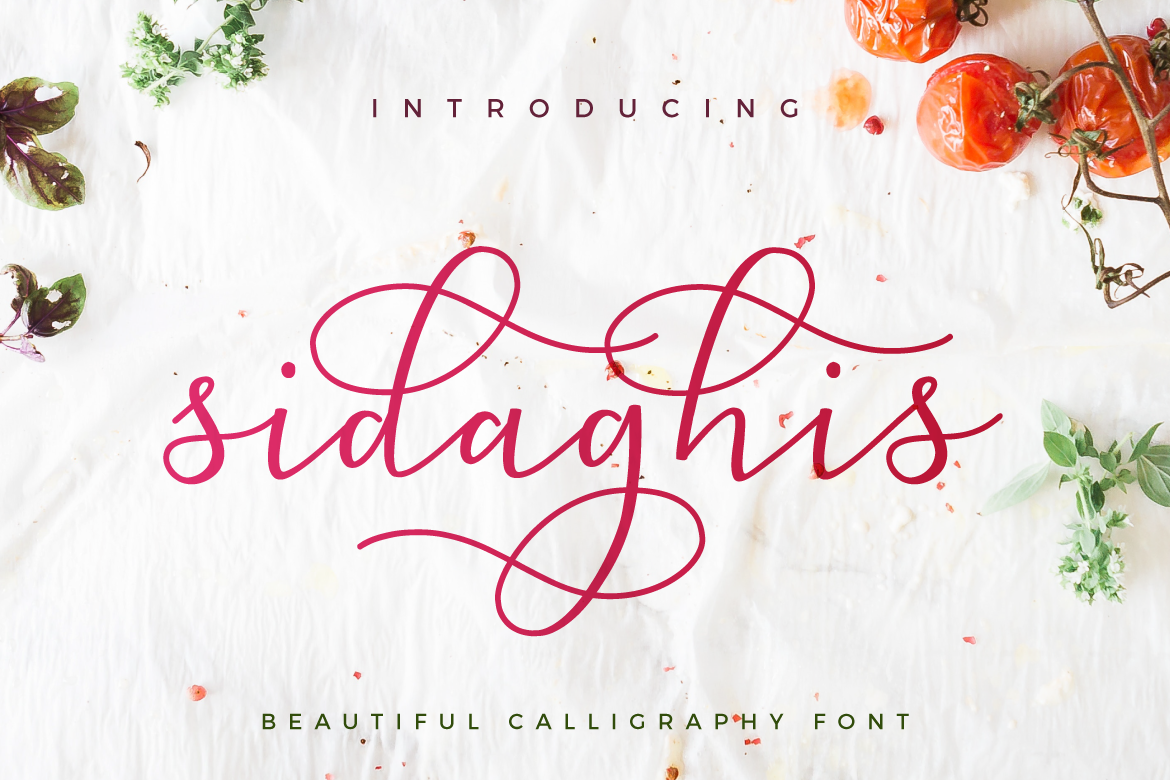
Sidaghis is a beautiful calligraphy font.
Sidaghis font is suitable for any design needs, modern invitation design, branding, blog design, modern advertising design, invitation, Art Quote, Home decor, Book/Cover Title, Invitation, special events, birthday, custom mug, pillow, t-shirts, any calligraphy style needs and more.
- Stylistic Set
- Ligature